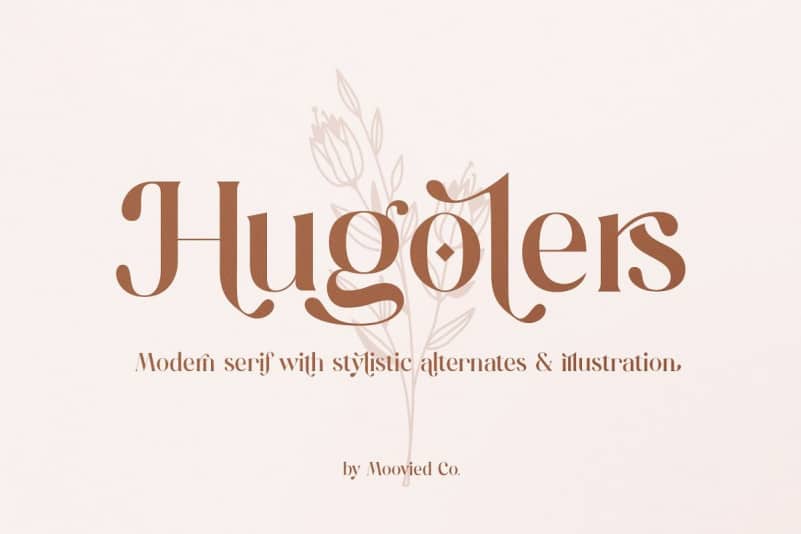
Hugolers Stylish Serif Font
Hugolers Stylish Serif Font is a modern-style serif font with alternatives and ligatures that create stunning logos, quotes, posts, blog posts. As you can see, Hugolers also works great for branding projects, magazine imagery, wedding invitations, and much more.